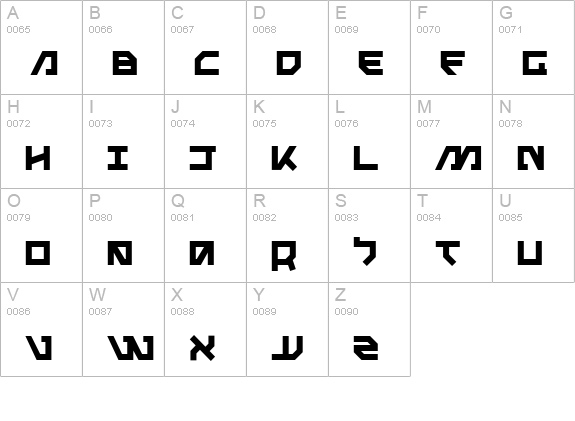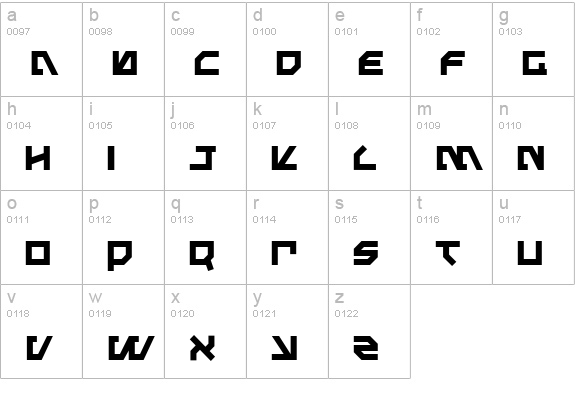
Metal Storm Font Details
Metal Storm font is a dynamic and bold typeface that is sure to make a powerful statement in any design project. With its sharp edges and industrial appeal, this font is perfect for creating a strong visual impact. The sleek and modern design of Metal Storm font makes it a versatile choice for a variety of applications, from posters and flyers to logos and branding. Best of all, Metal Storm font is available for free download at FontsMarket.com. This means that you can easily access this striking font and incorporate it into your designs without any cost. Whether you're looking to add a touch of edge to your project or create a bold and impactful headline, Metal Storm font is the perfect choice for free and easy access.